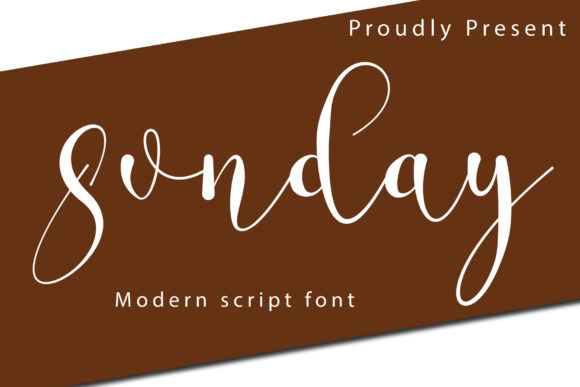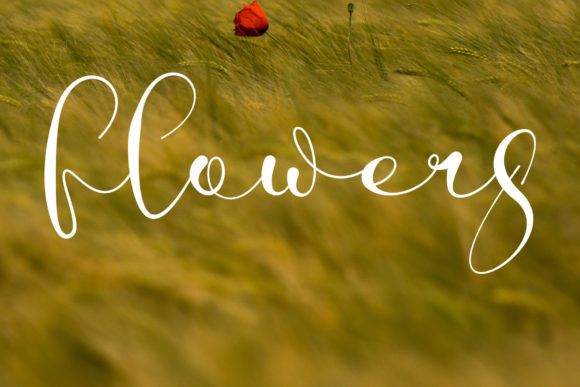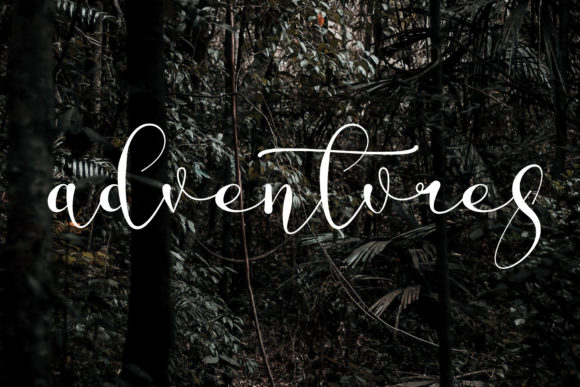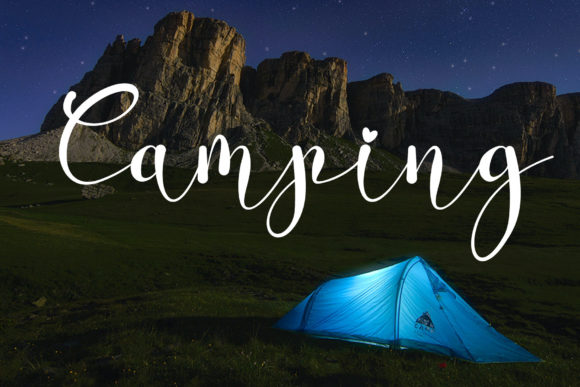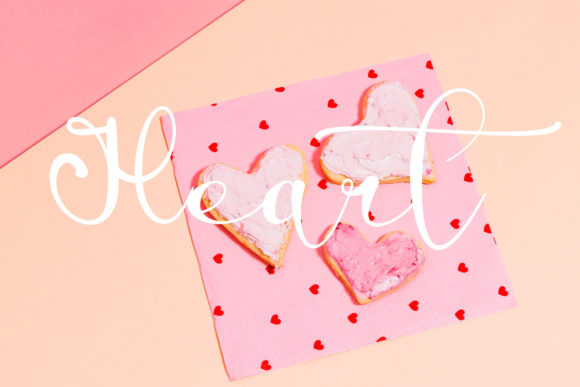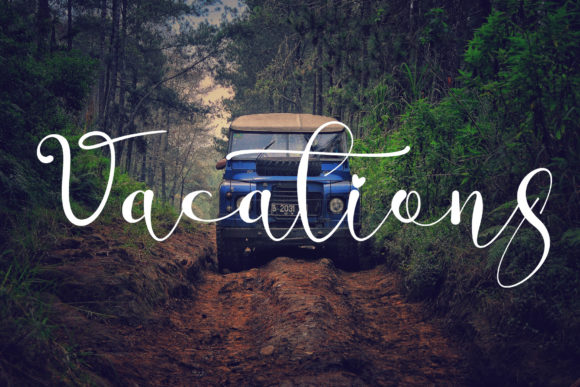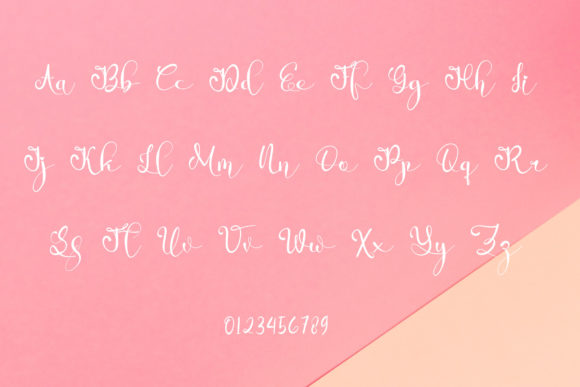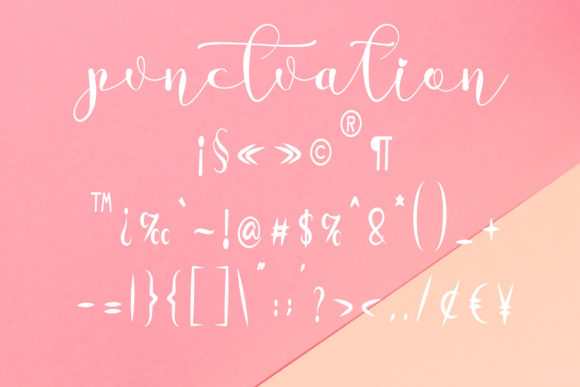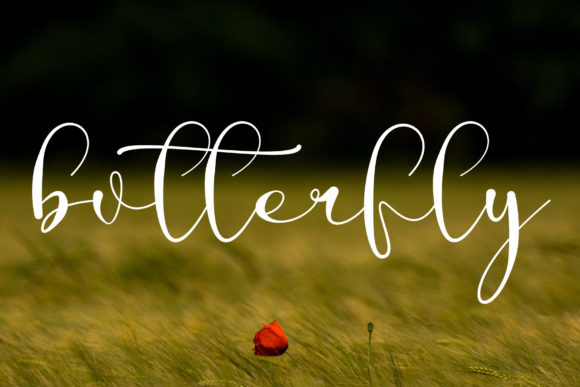
Sunday Font
About Sunday Font
Sunday is a lovely and chic script font, exuding a sense of charm and elegance. This sophisticated typeface is an ideal choice for a variety of design applications, ranging from product packaging and branding projects to magazine covers, social media posts, weddings, or any context where you want to convey words with style and grace.
The chic and stylish nature of Sunday makes it perfect for enhancing the visual appeal of product packaging, adding a touch of sophistication to the overall presentation. When applied to branding projects, Sunday contributes an elegant flair that helps create a memorable and refined brand identity.
Magazine covers benefit from Sunday’s chic script, as it brings a sense of fashion and trendiness to the forefront. Social media posts, especially those aimed at conveying messages with style, are elevated by the font’s graceful and lovely design. In wedding-related designs, Sunday adds a touch of romance and sophistication, making it a fitting choice for invitations, signage, and more.
Whether used as a standalone element or to complement a background, Sunday stands out with its chic script that effortlessly communicates a sense of style and elegance. The font’s versatility allows it to adapt to various design contexts, ensuring a seamless integration into different projects.
In summary, Sunday is more than just a font; it’s a lovely and chic script that enhances the visual aesthetics of your design projects. Its versatility makes it suitable for a wide range of applications, allowing you to infuse elegance and style into product packaging, branding, magazine covers, social media, weddings, and beyond. With Sunday, your creative endeavors are elevated with a touch of sophistication and charm.